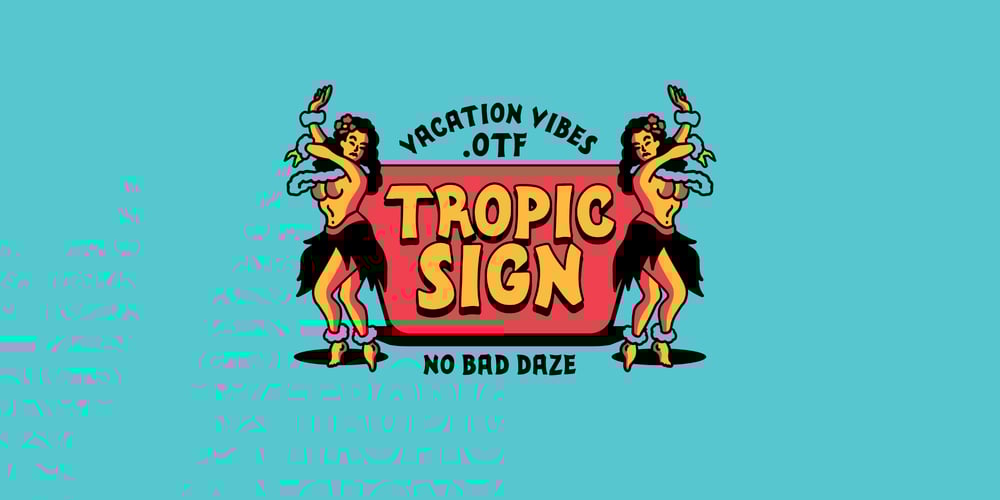
Tropic Sign
Tropic Sign font
Tropic Sign Font Family was designed by Sam Bledsoe and published by Kern Club. Tropic Sign contains 1 styles and family package options. Aloha vibez bruhduh Uppercase Character Set A-Z Numerals & Simple punctuation OTF file format Drawn by Samborghini. Kerned by Dontrealllycare